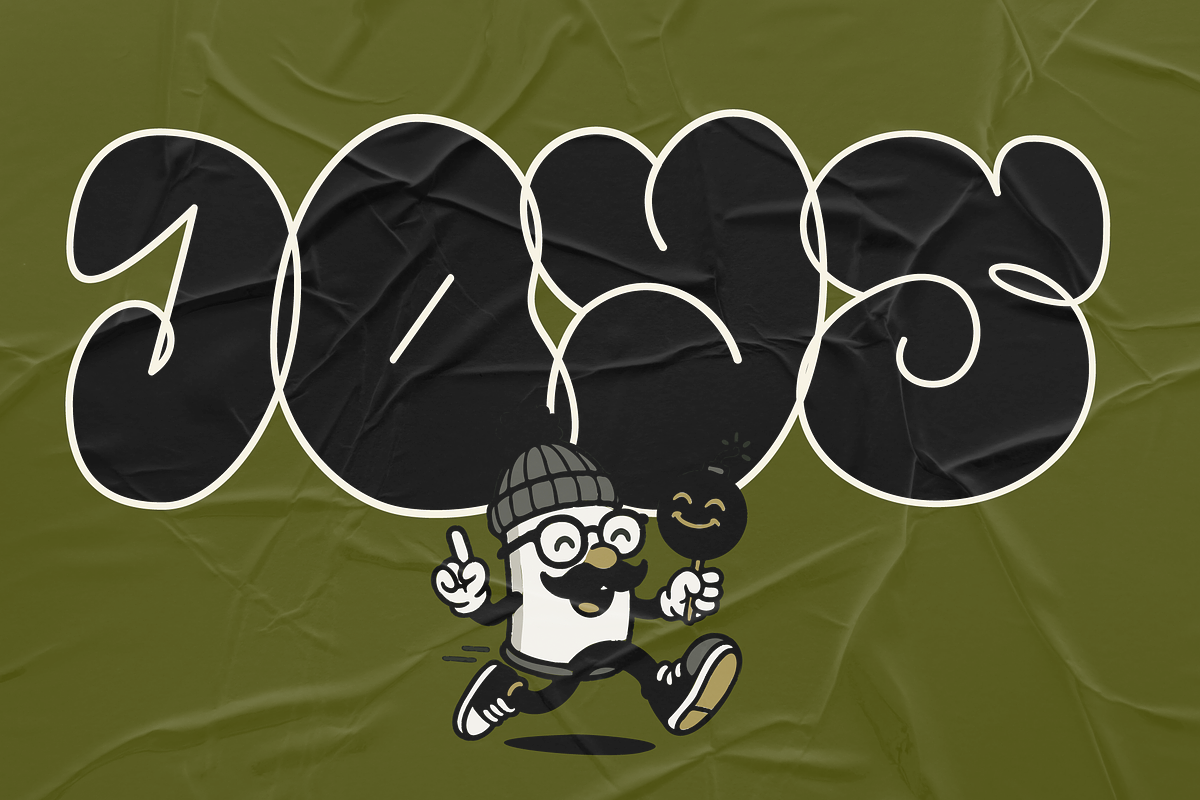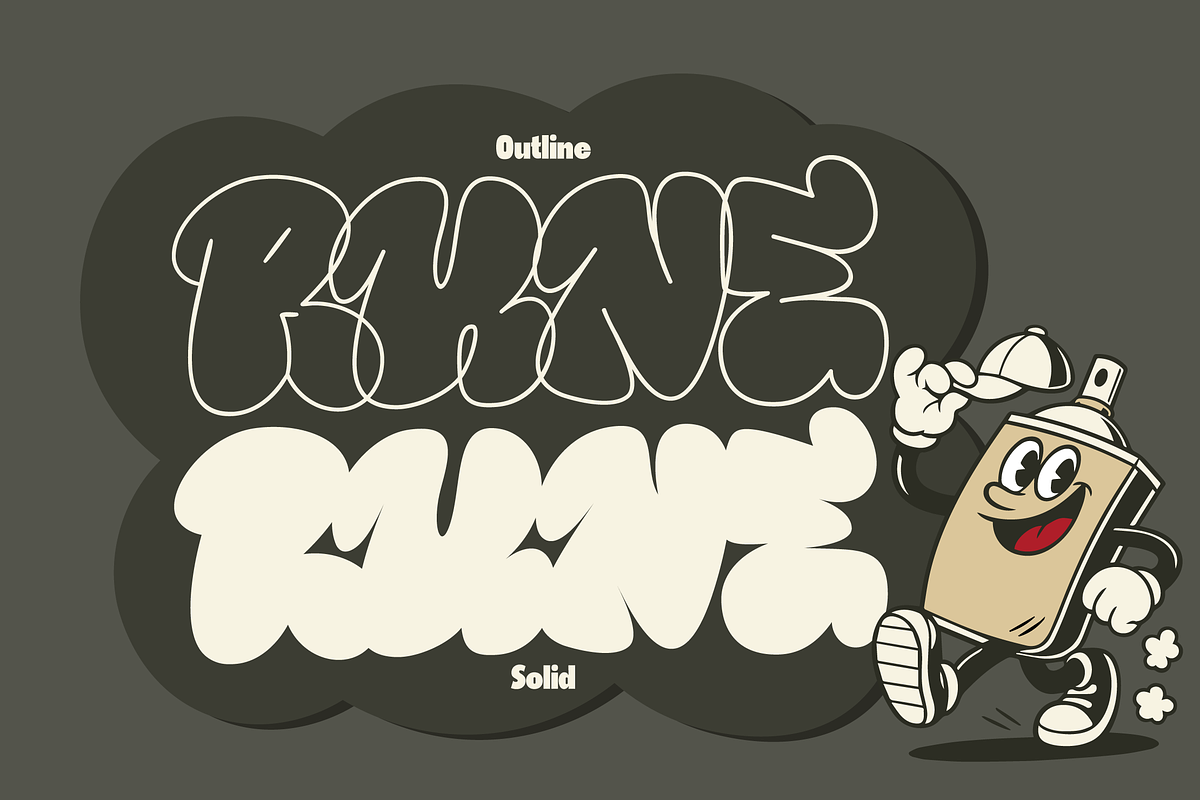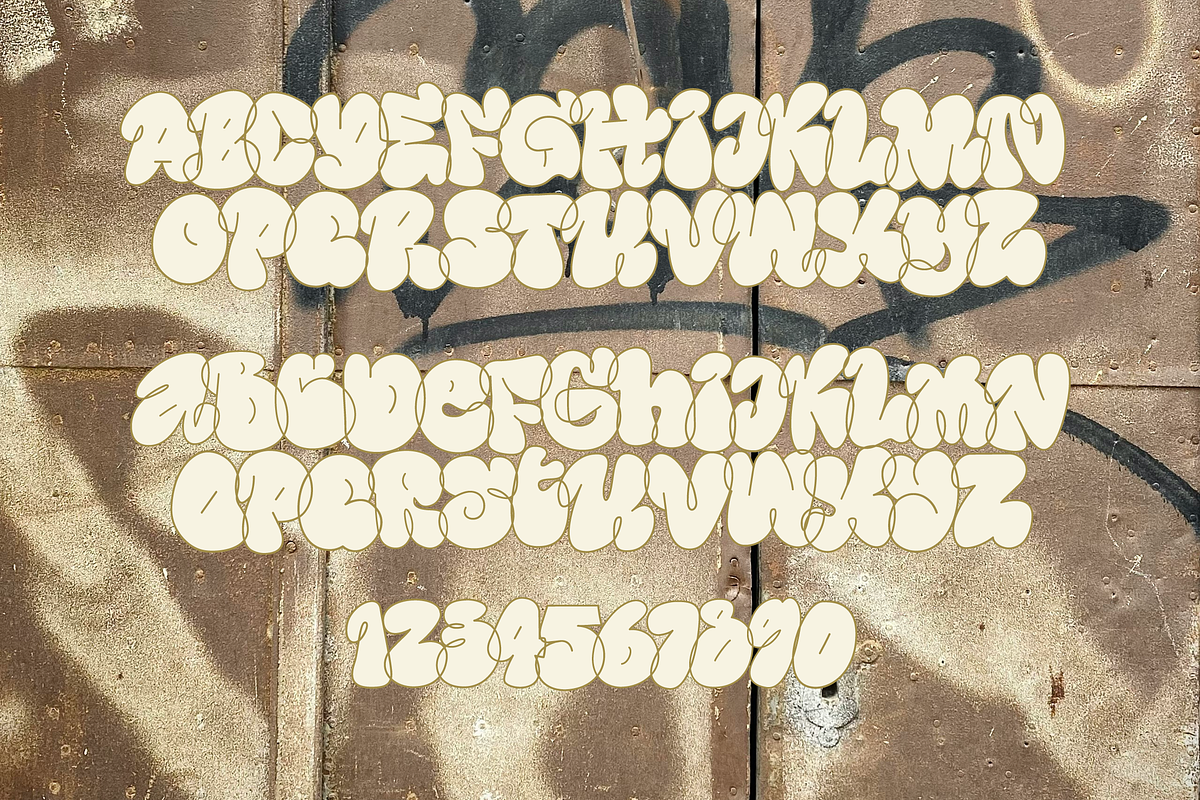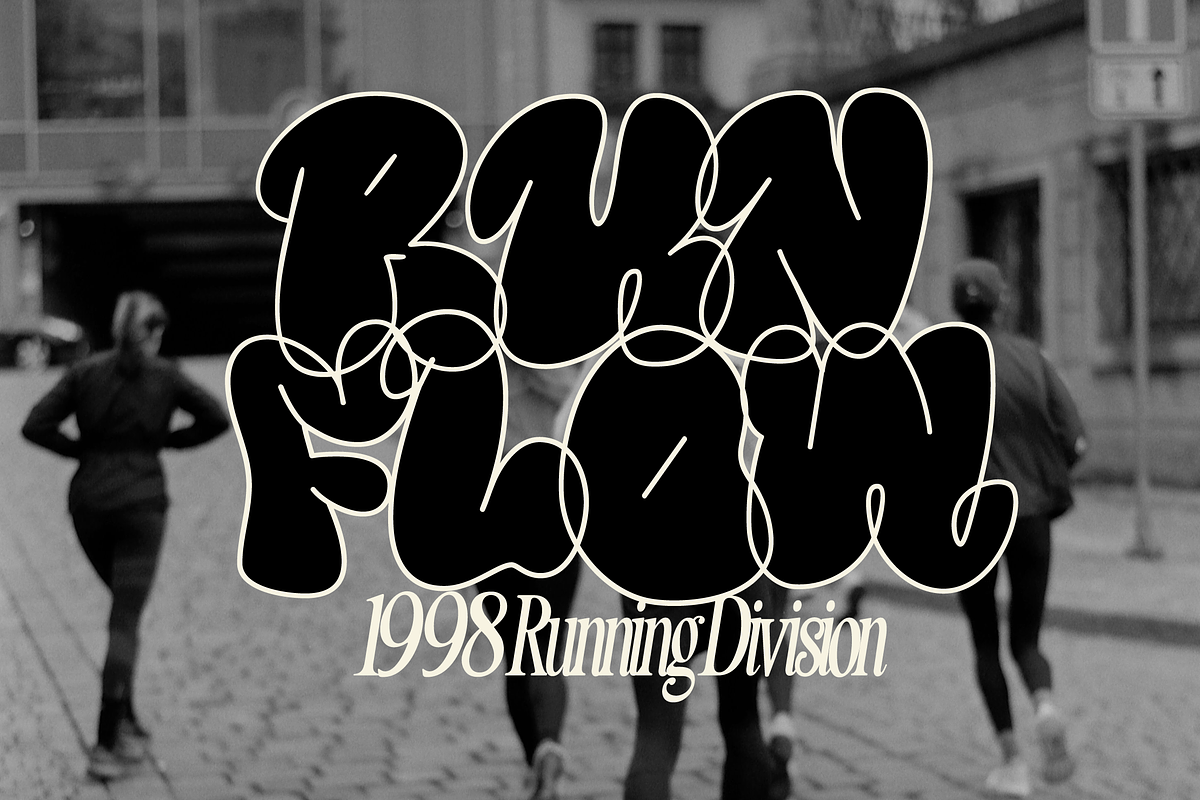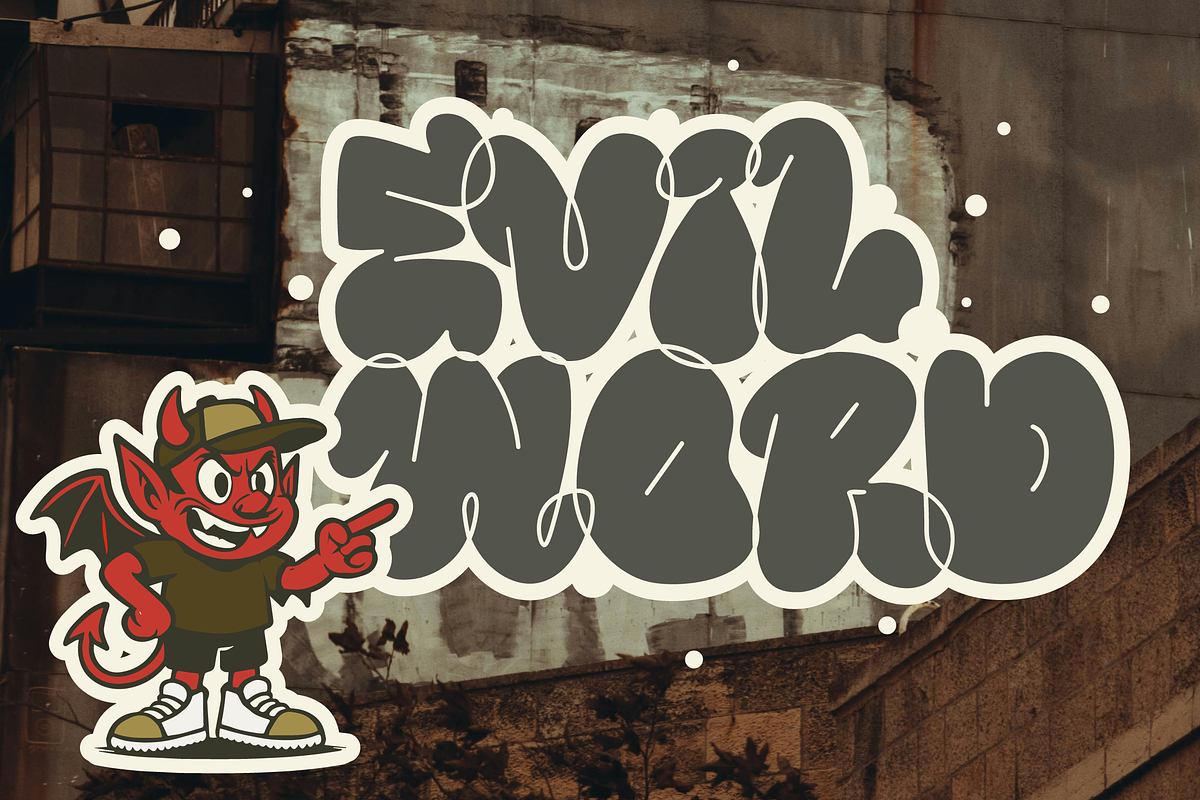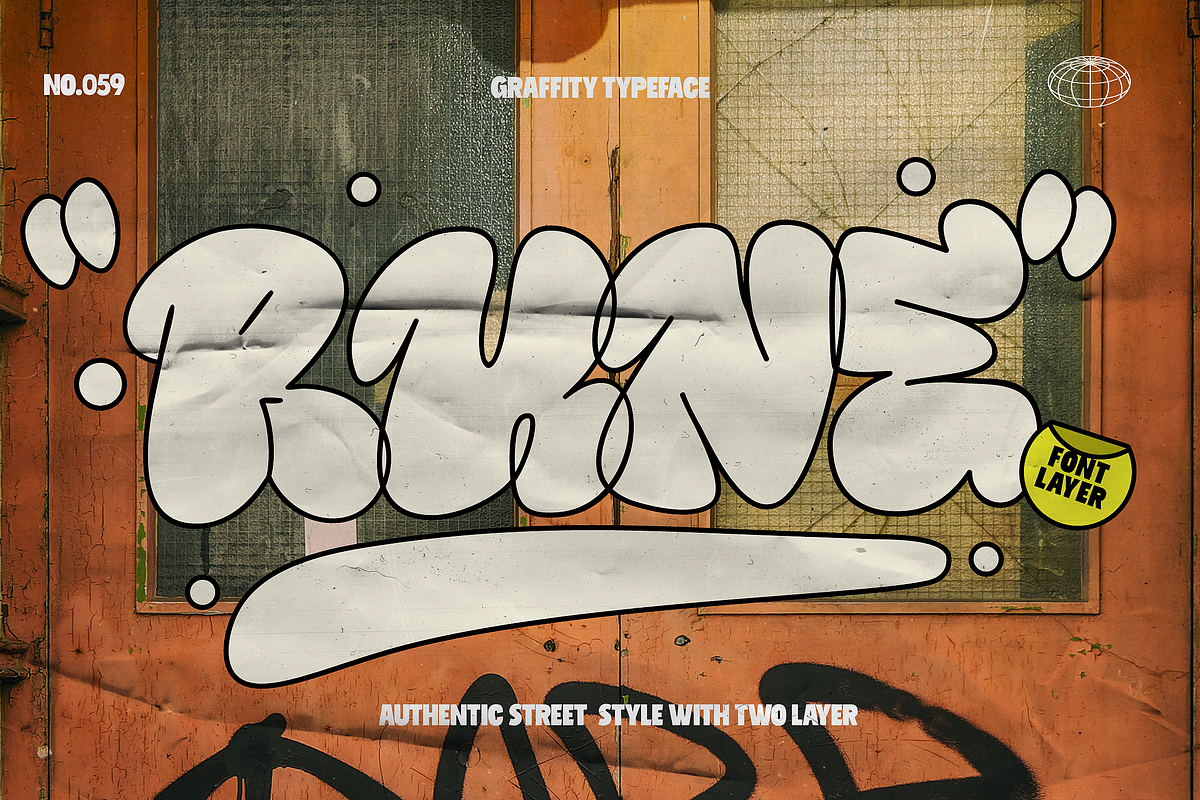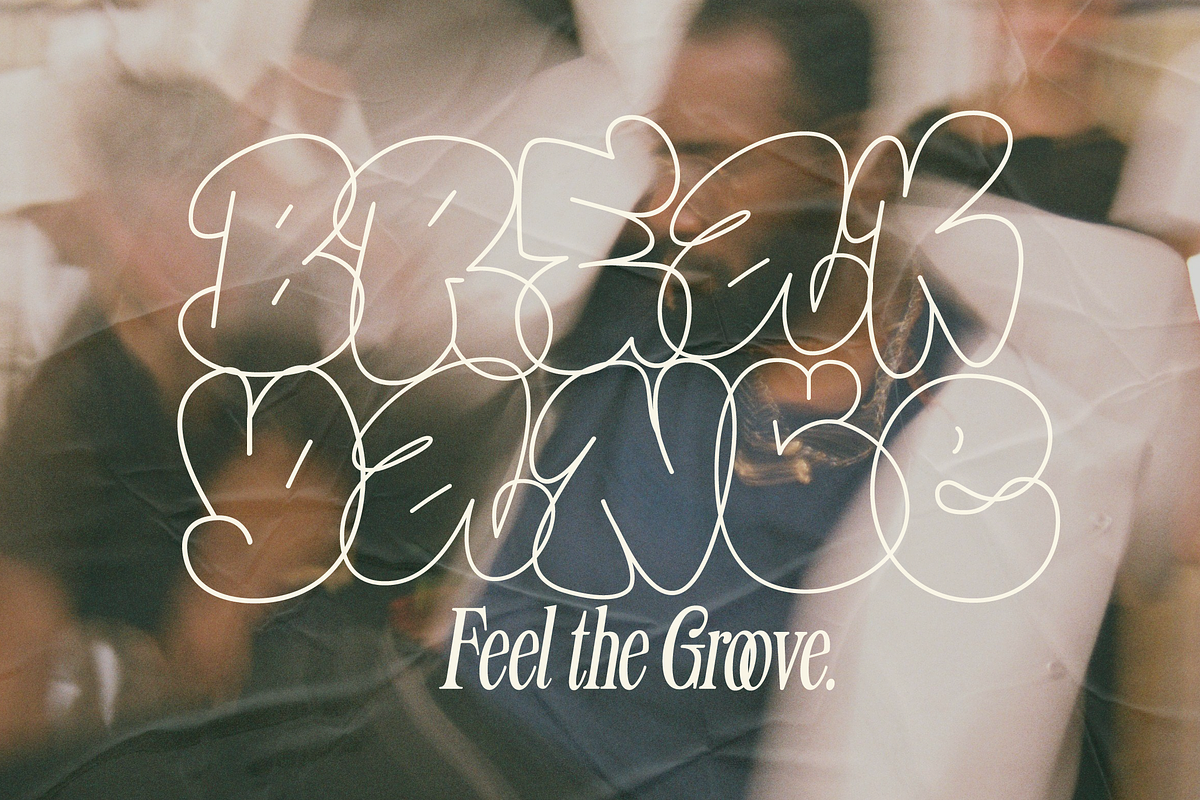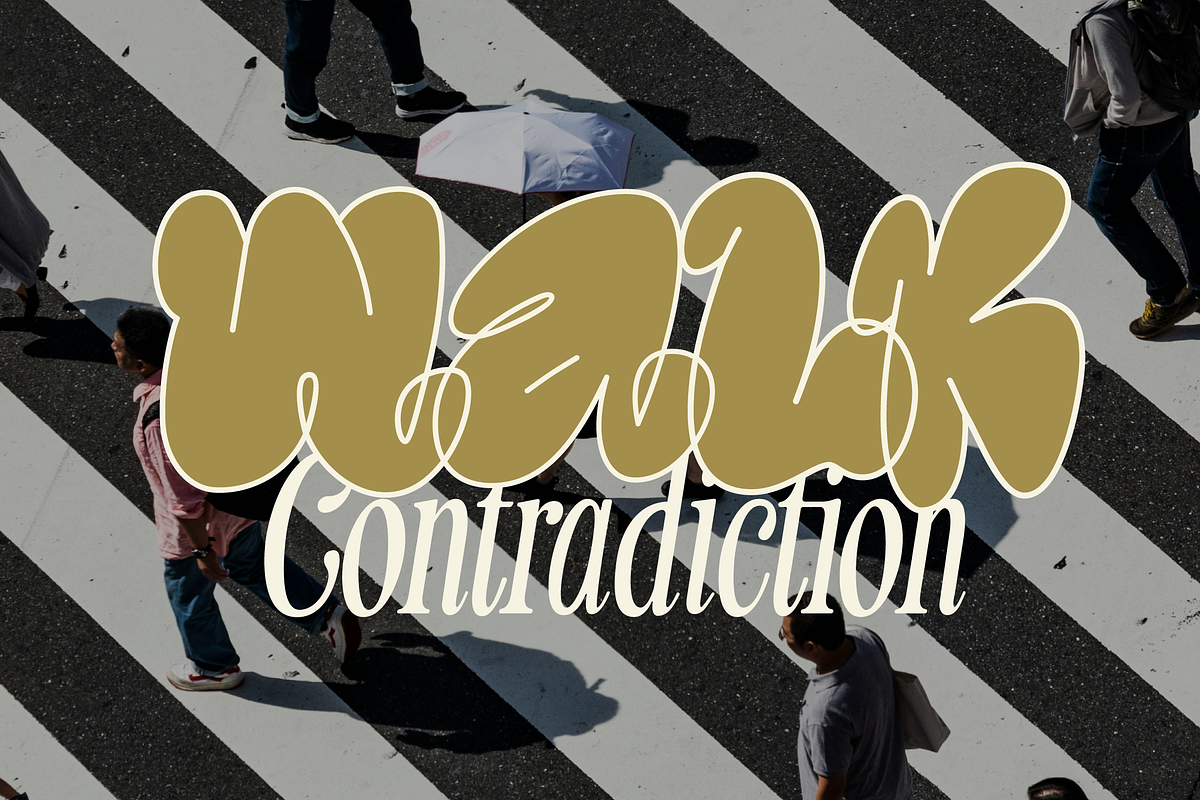
Rune - Authentic Grafity Look
Introducing RUNE, a unique graffiti-style font that embodies the boldness, rebellion, and creativity of street art culture. Designed with layered flexibility (base and outline), RUHE gives your artwork depth and versatility. Whether you're crafting edgy visuals for a any designs, RUNE delivers a raw, street-smart aesthetic that can't be ignored.
- Two Font Layers (Base + Outline)
- Authentic Graffiti Look
- Uppercase & Lowercase Letters
- Numbering & Punctual
Bring the energy of the streets into your design. Let's get wild with RUHE!